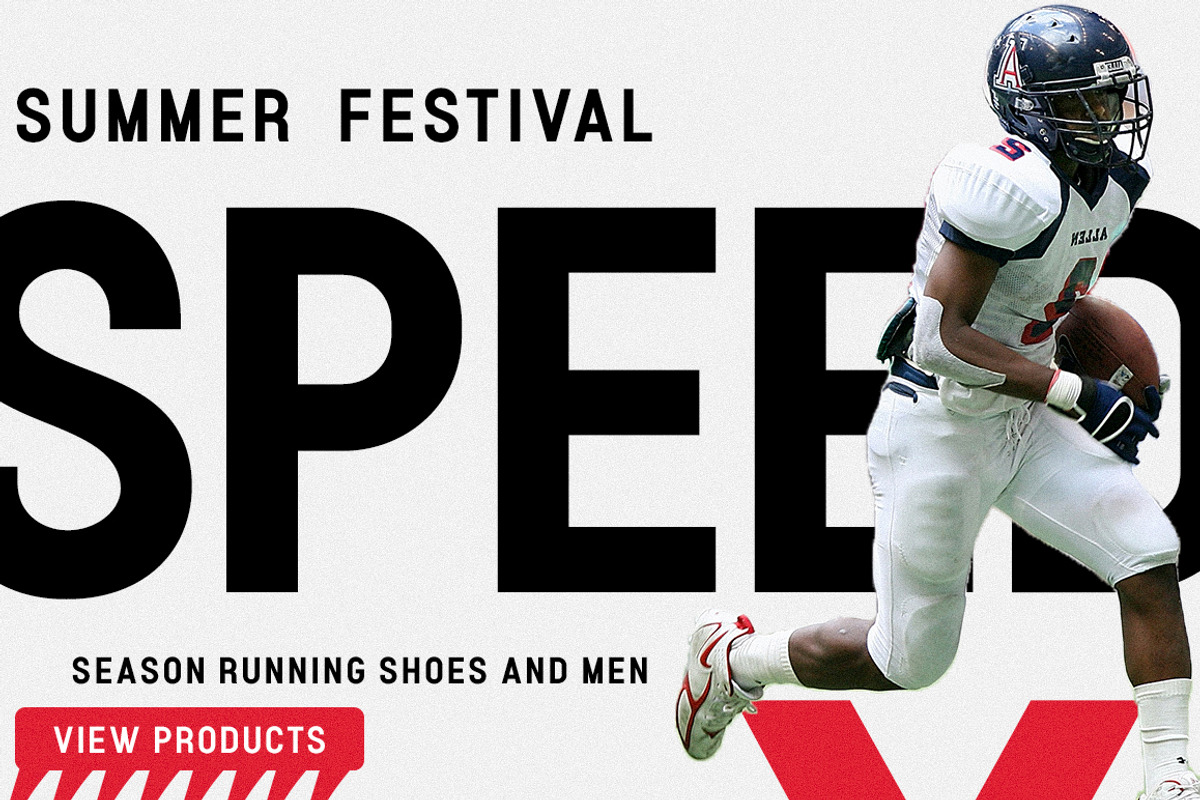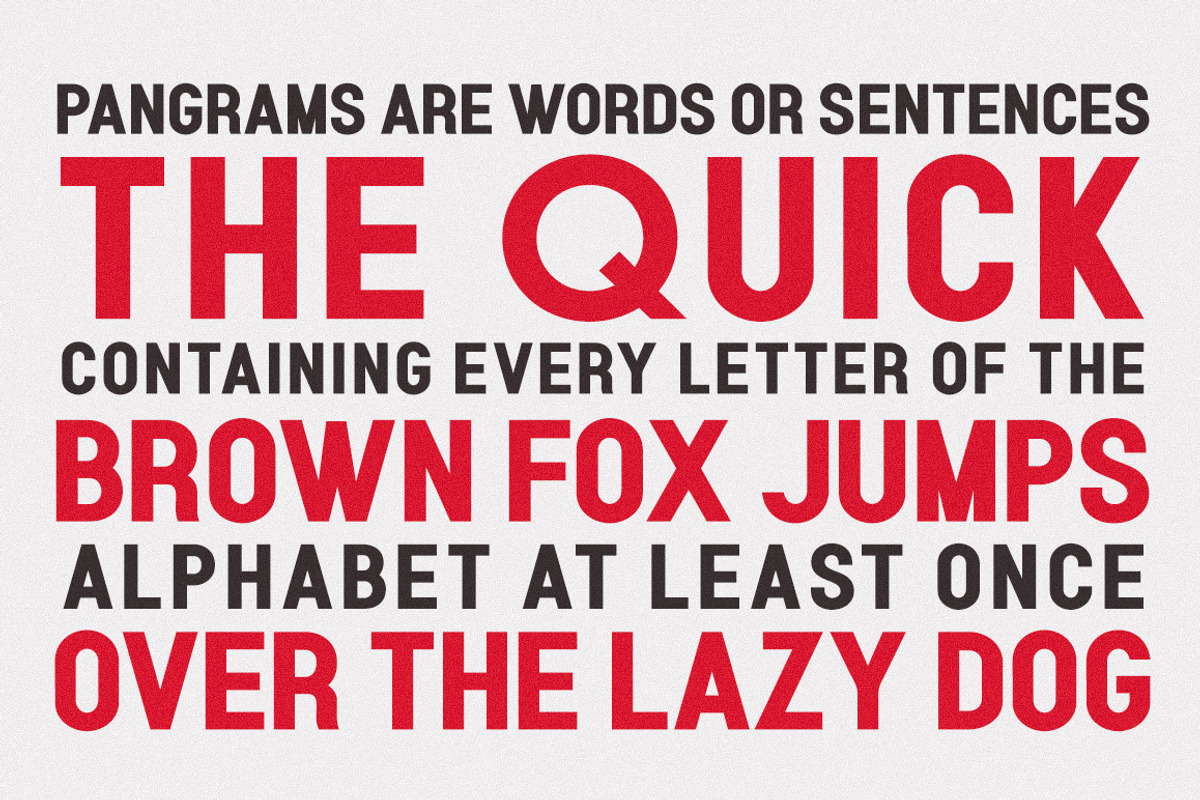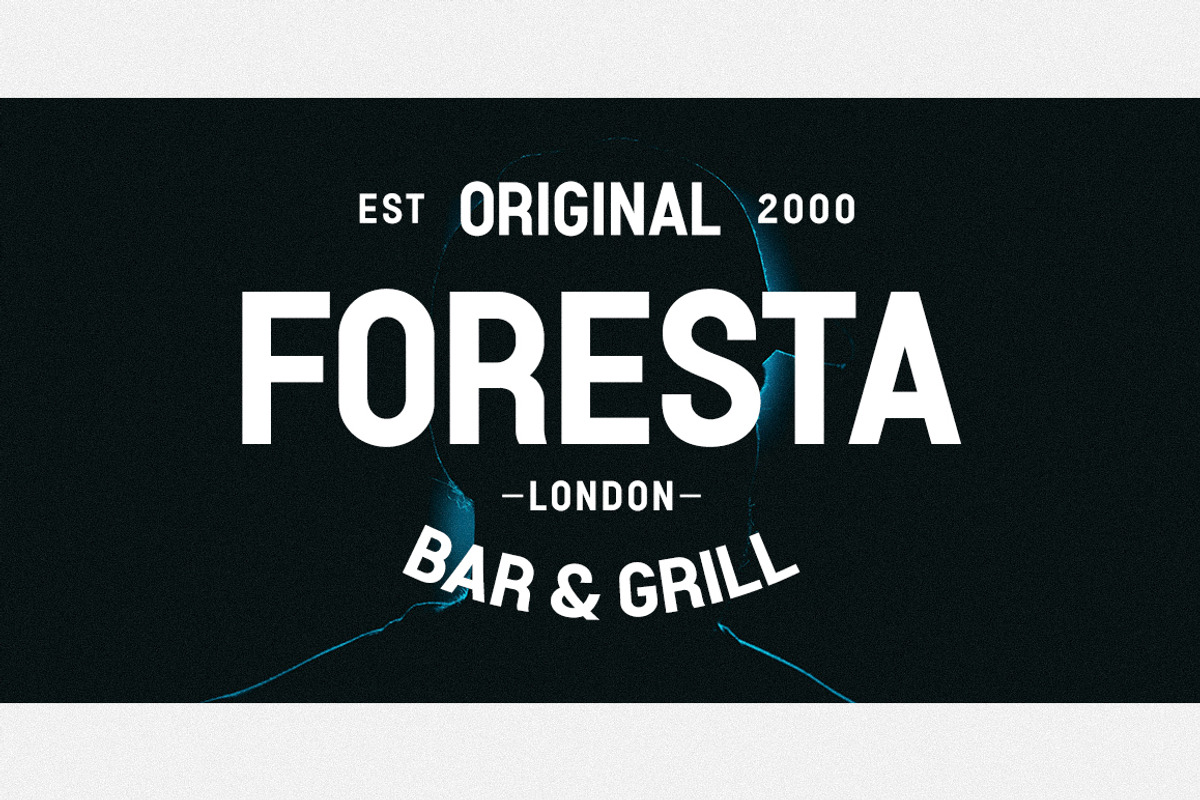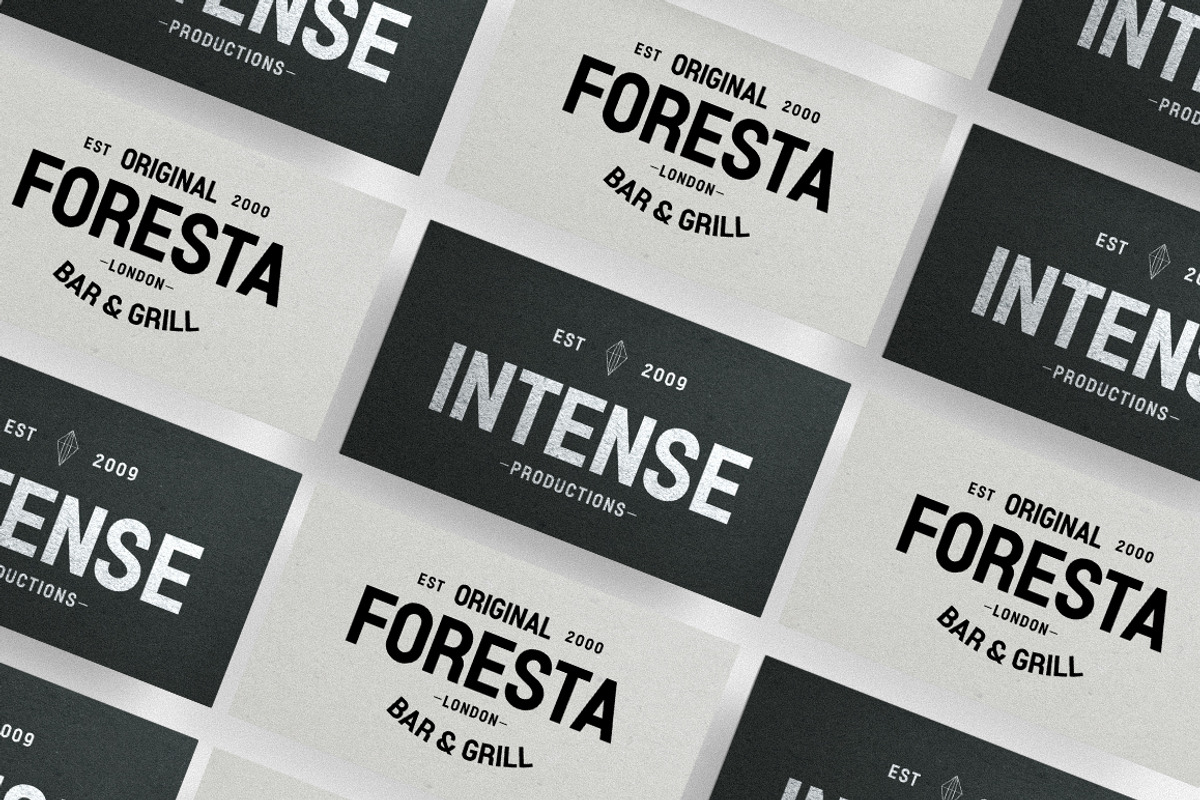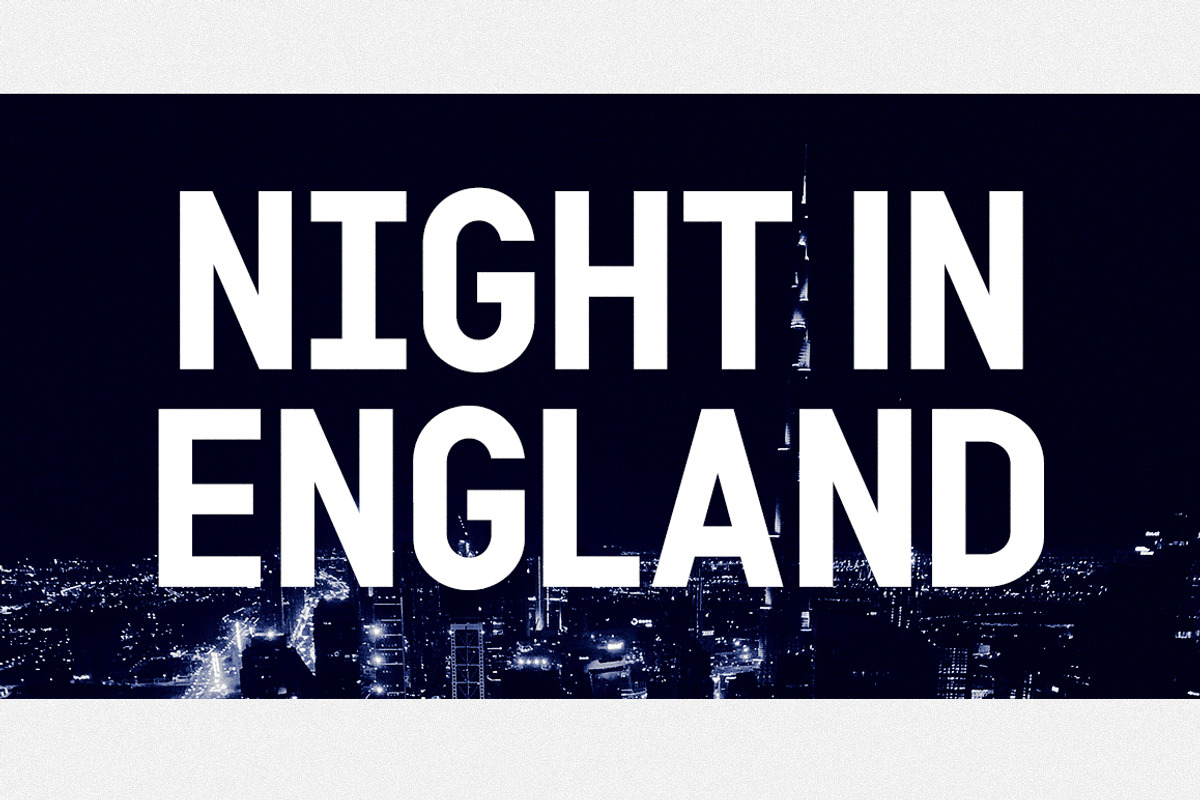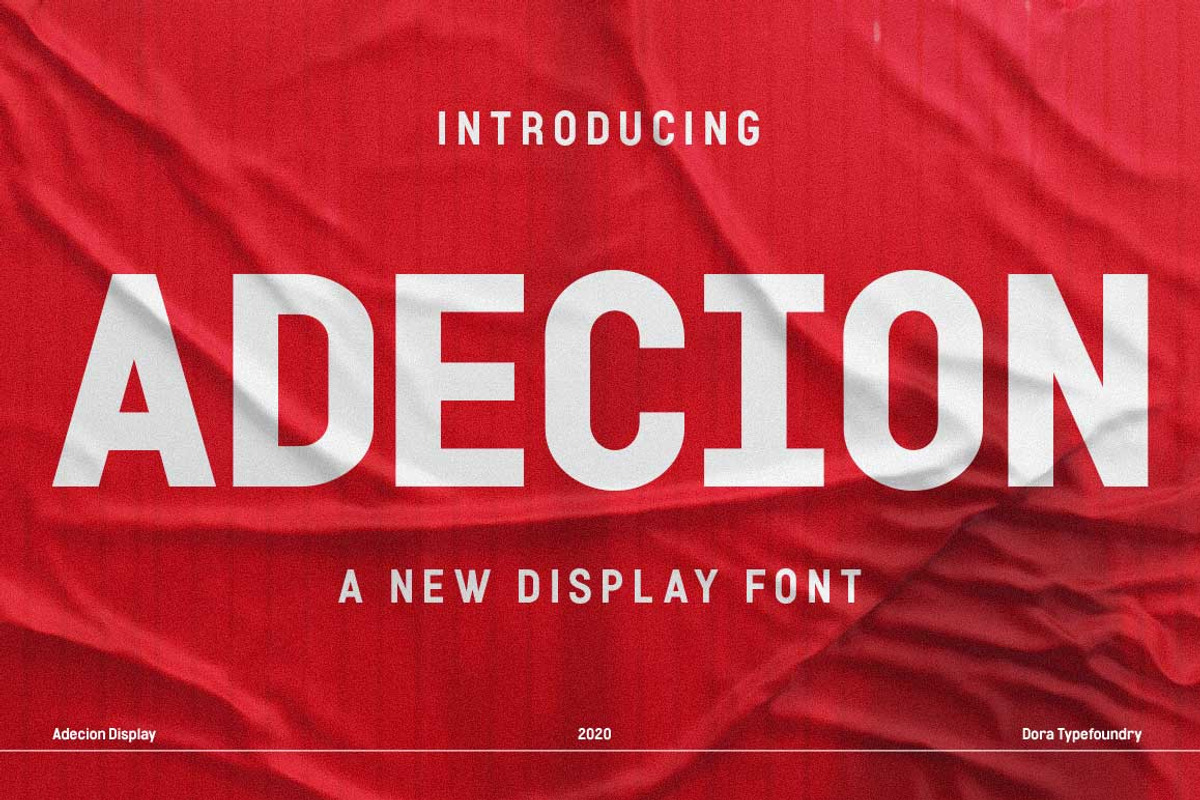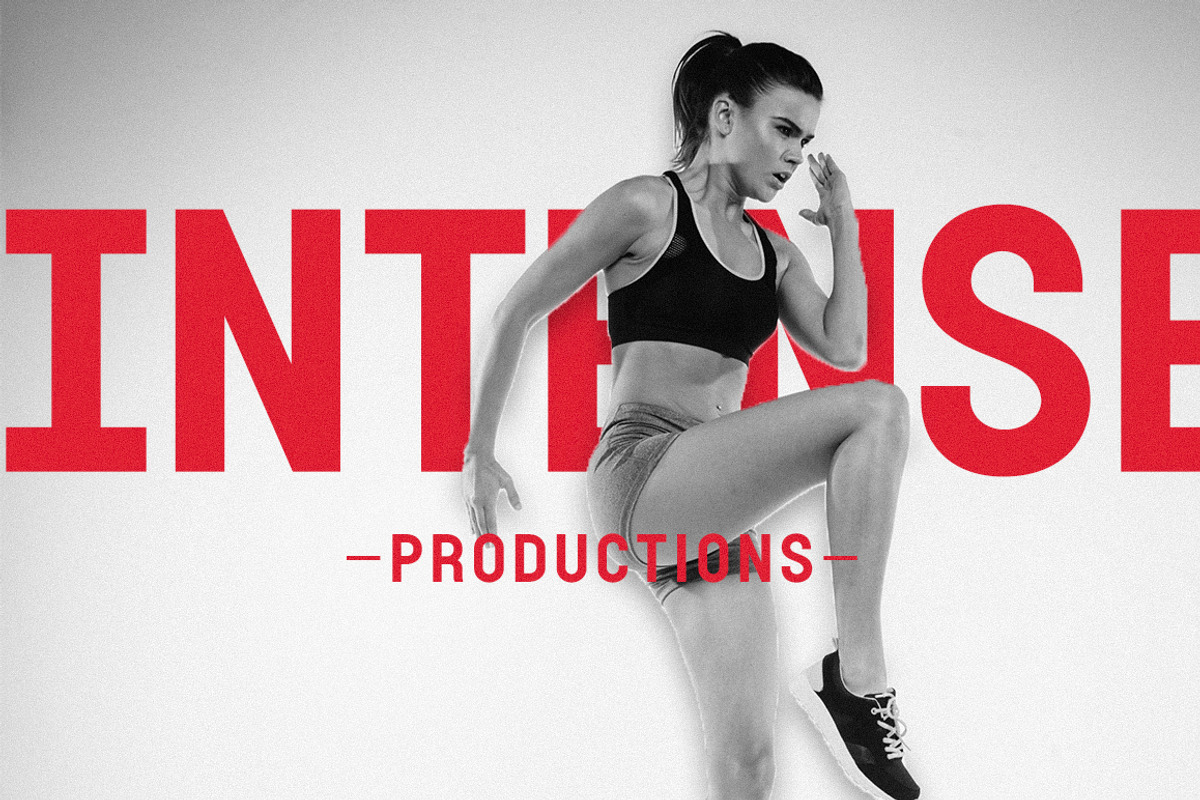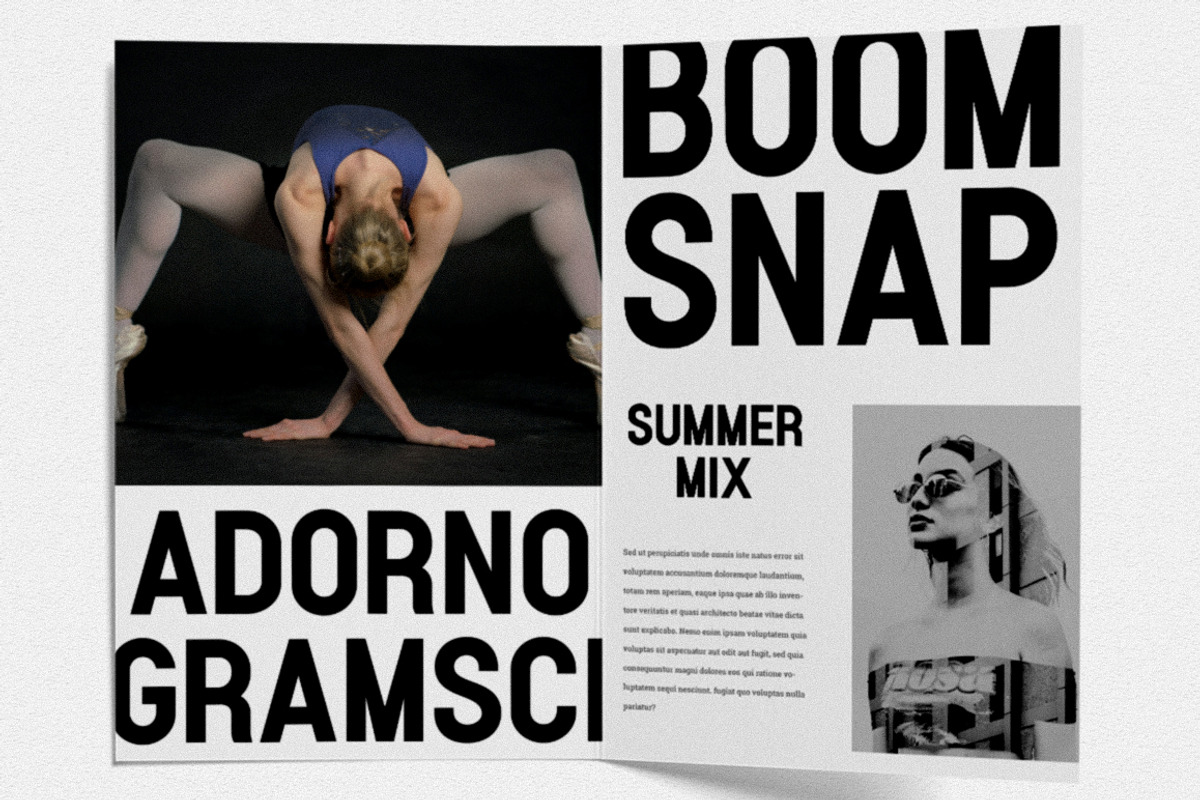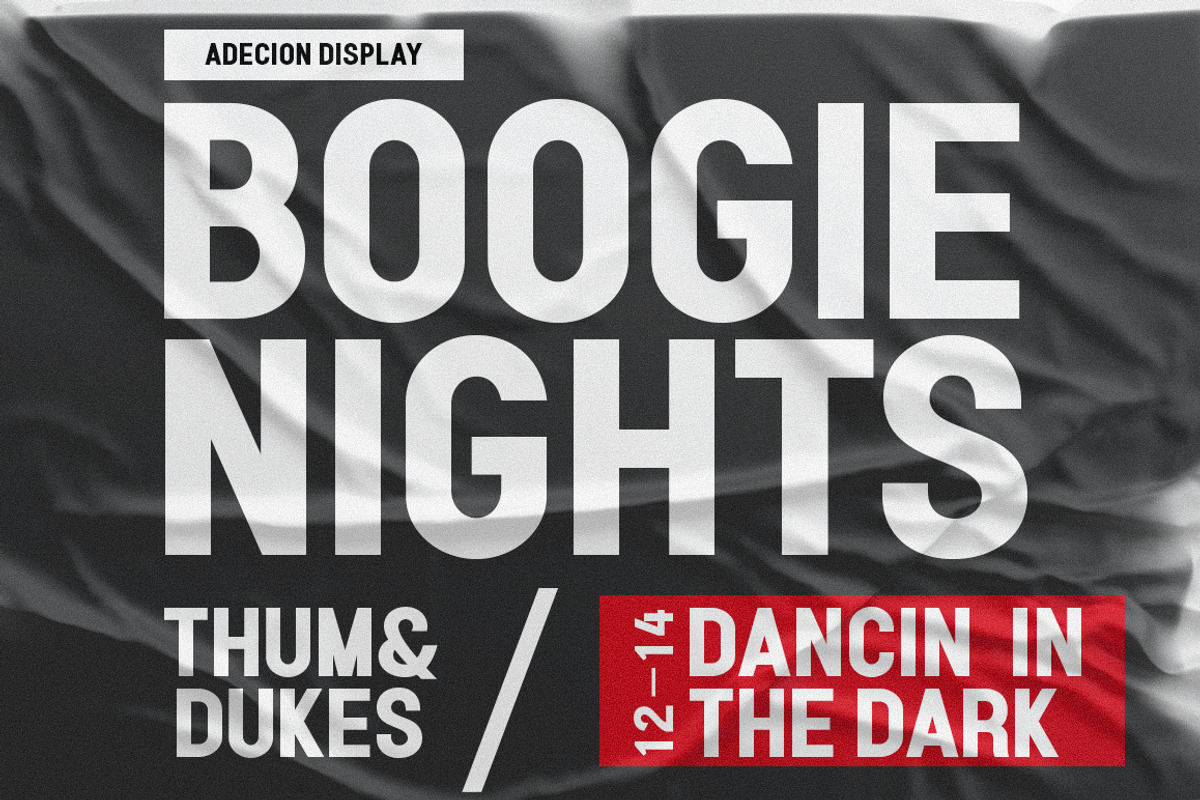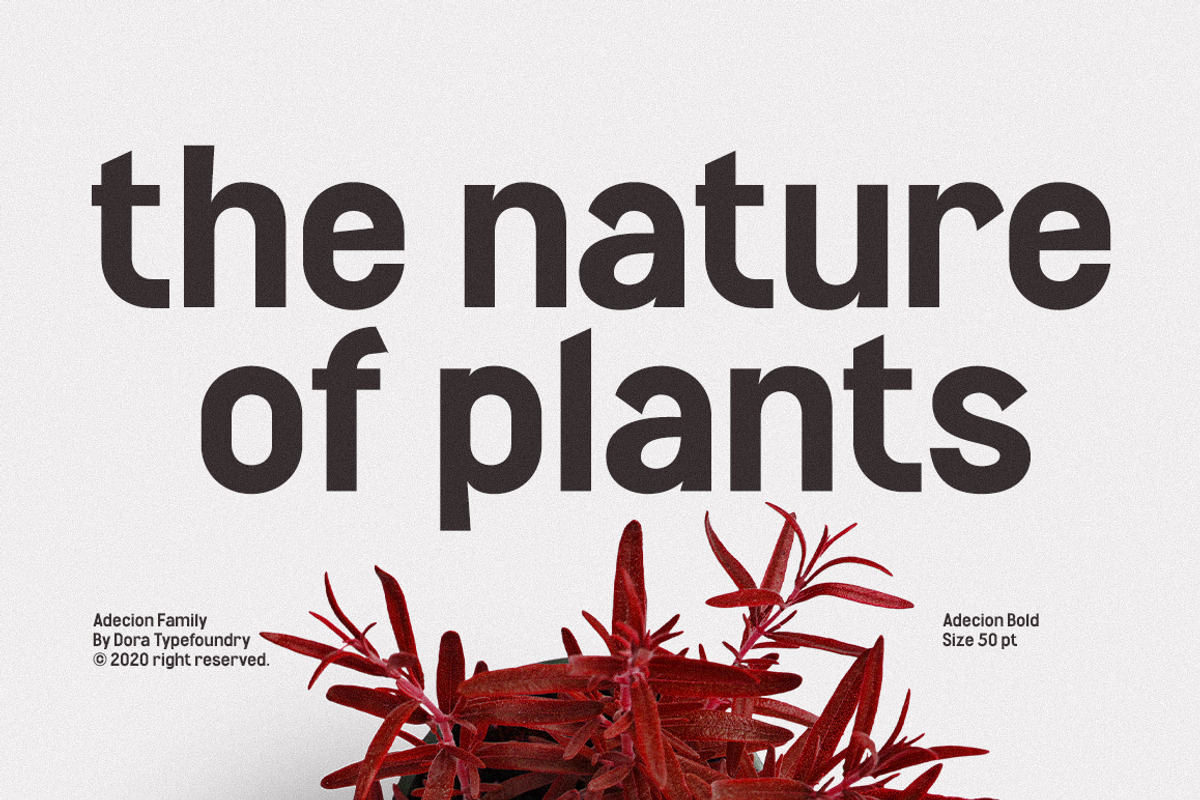
Adecion Display Font
Introducing Adecion is designed for maximum visual and emotional impact. Its four weights excel in posters, social media, headlines, large format print - and anywhere else you want to get noticed. Hidden between straight lines and firm confidence is a hint of charm and mischievous character; Adecion gives your words a powerful sound as well as fun to use. Perfect for graphic design and any screen use of your projects such as branding, magazines, editorials, wedding invitations, logo design, posters, social media, and more!
- 4 Font weight
- Alternative Uppercase
- Characters with accents
- Supports Multiple Languages